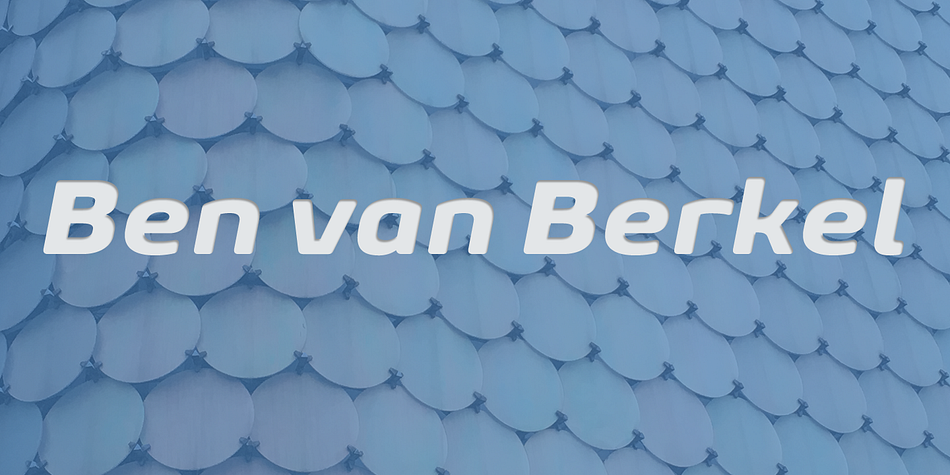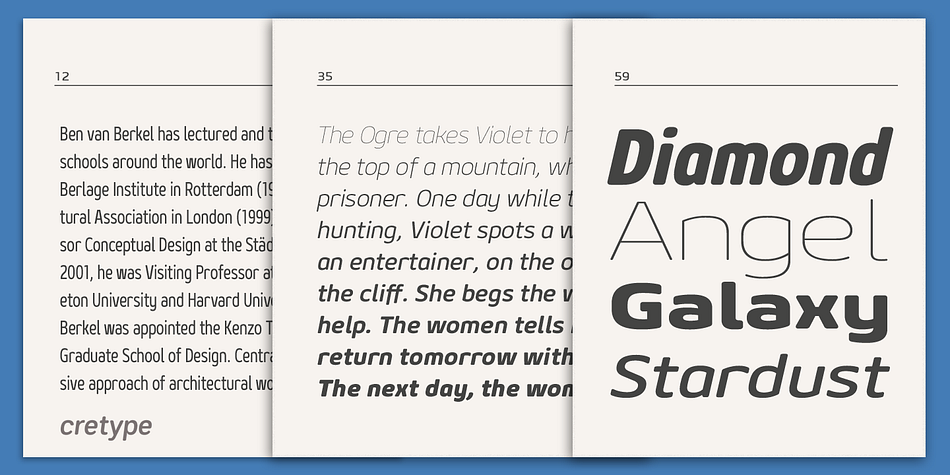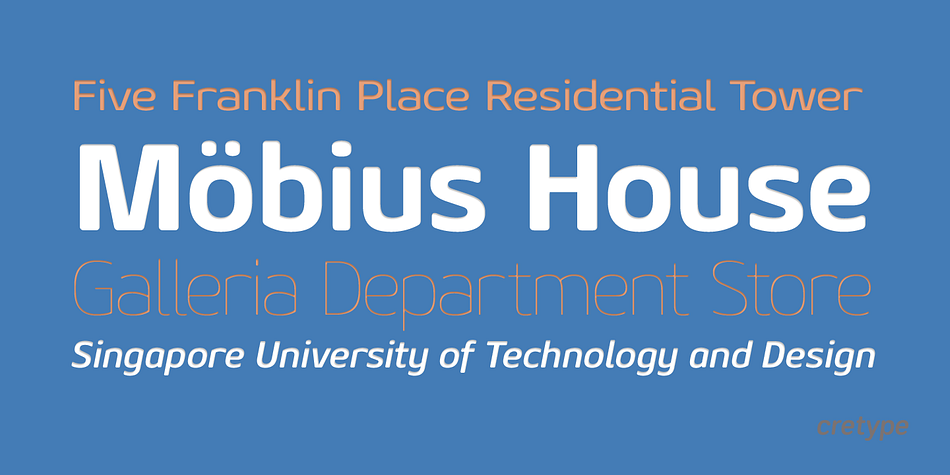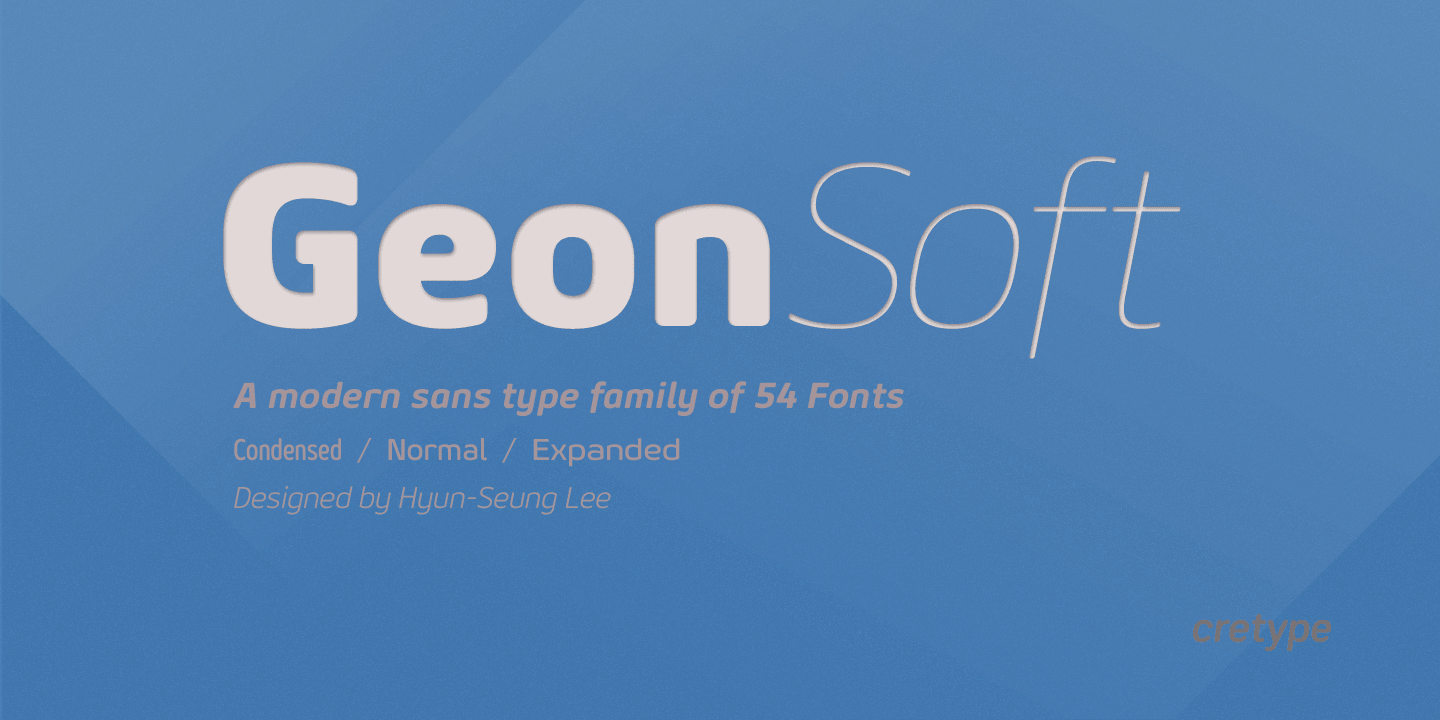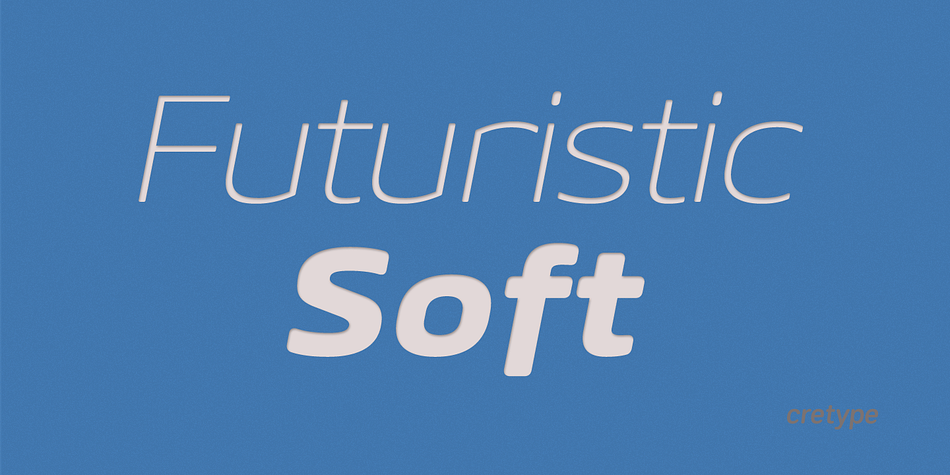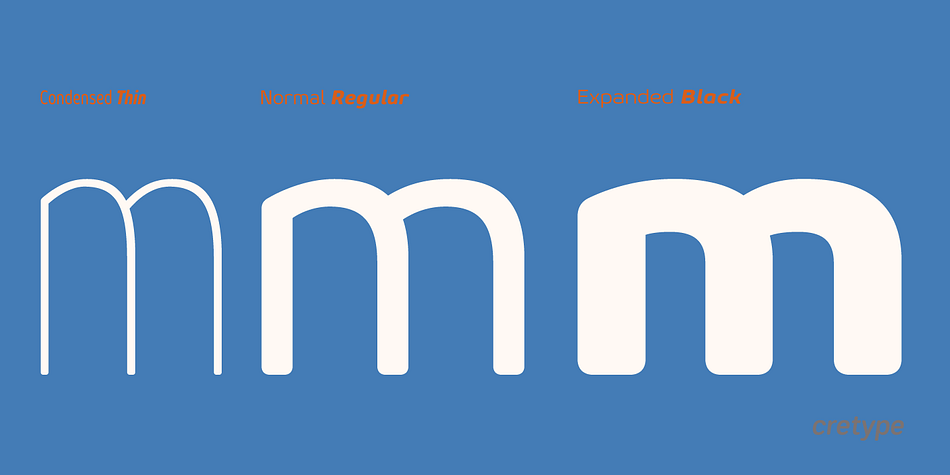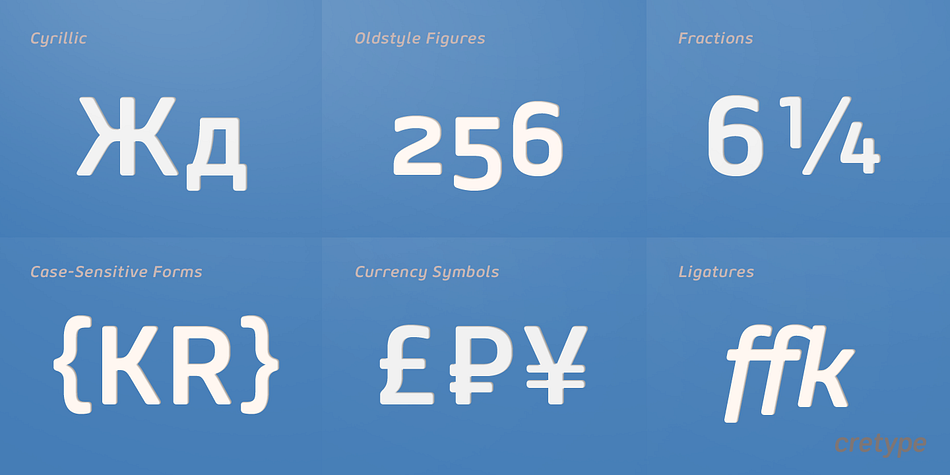
Designed by Hyun-Seung Lee, Geon Soft is a sans serif font family. This typeface has fifty-four styles and was published by cretype.
Geon Soft is the rounded version of Geon. Geon Soft Family is a modern sans-serif typeface that is clean, simple, soft and highly readable. Letters in this type family are designed with geometric shapes without any decorative distractions. The spaces between individual letter forms are precisely adjusted to create the perfect typesetting.
Geon Soft is a versatile type family of 54 fonts. Geon Soft family consists of 9 weights (Thin, ExtraLight, Light, Regular, Medium, Bold, ExtraBold, Heavy & Black) & 3 widths (Condensed, Normal & Expanded)with their corresponding italics.
The Open Type fonts contain complete Latin 1252, Cyrillic, Central European 1250, Turkish 1254 character sets. Each font includes proportional figures, tabular figures, numerators, denominators, superscript, scientific inferiors, subscript, fractions and case features.
We highly recommend it for use in books, web pages, screen displays, and so on.